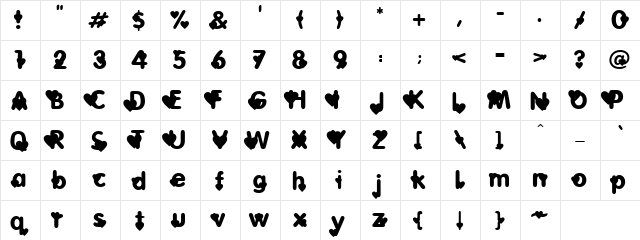
PC HeartBeat Regular
Design Context for PC HeartBeat Typeface
PC HeartBeat is a composed and adaptable typeface that performs quietly and consistently across a wide range of design contexts.